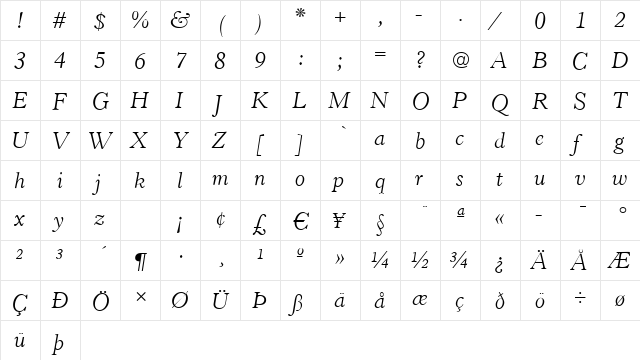
Hastings Italic
Design Context for Hastings Typeface
Hastings takes a measured approach to typography — its balanced proportions and neutral character make it a reliable workhorse for both digital and print work. Its italic angle brings a sense of urgency and motion to the letterforms.
Pro Tip: Use Hastings for emphasis, pull quotes, and subheadings where its slanted energy can add rhythm to the layout.